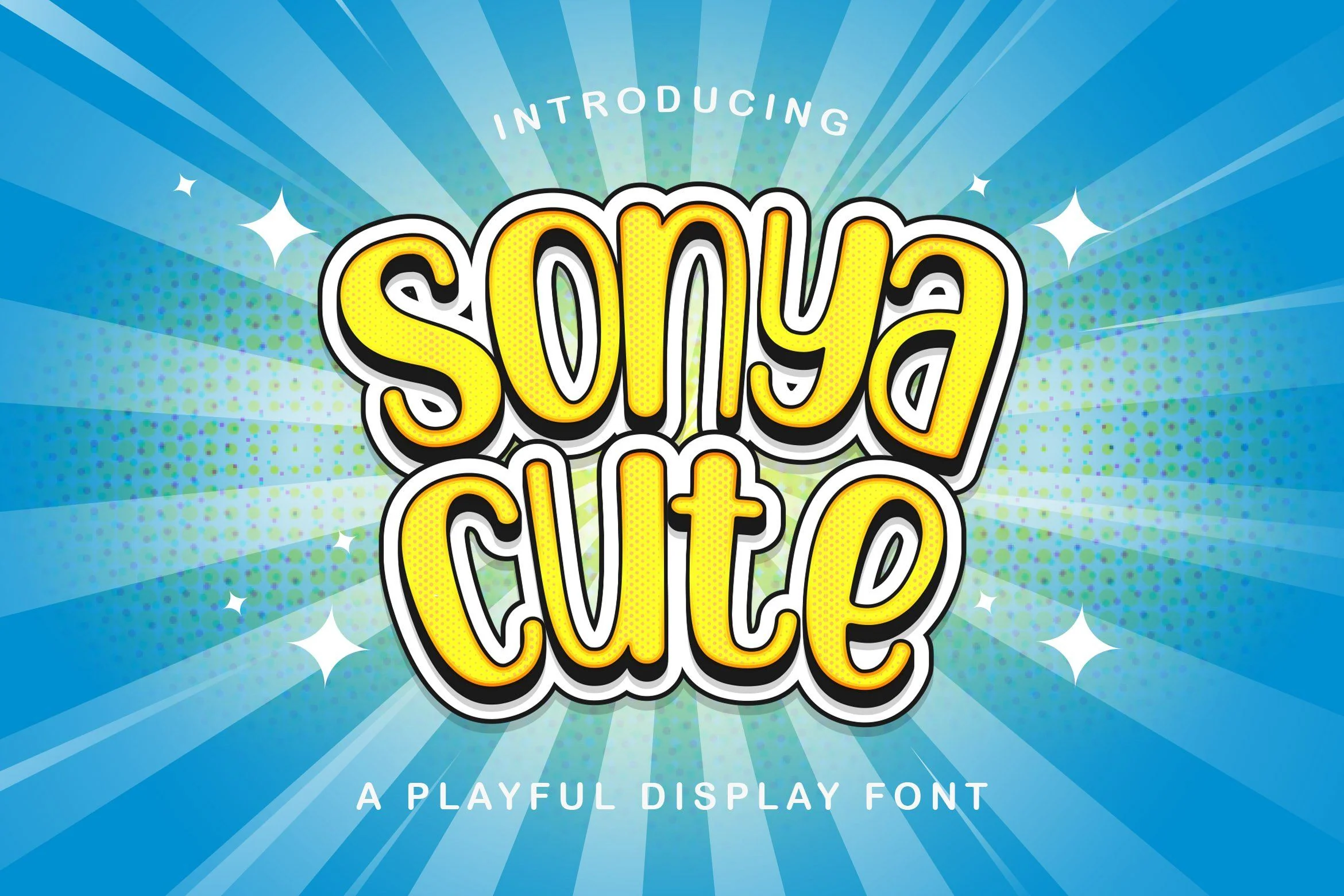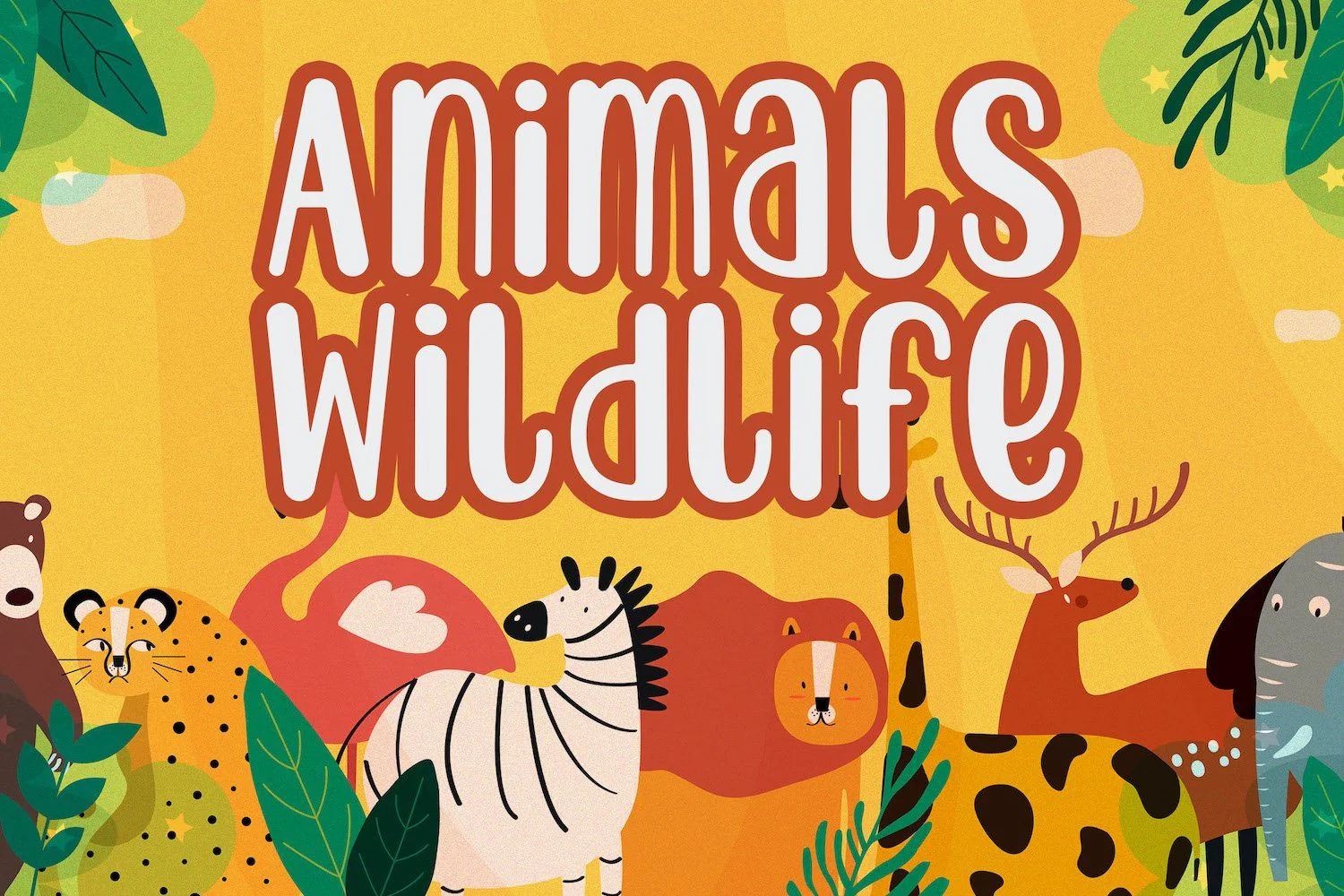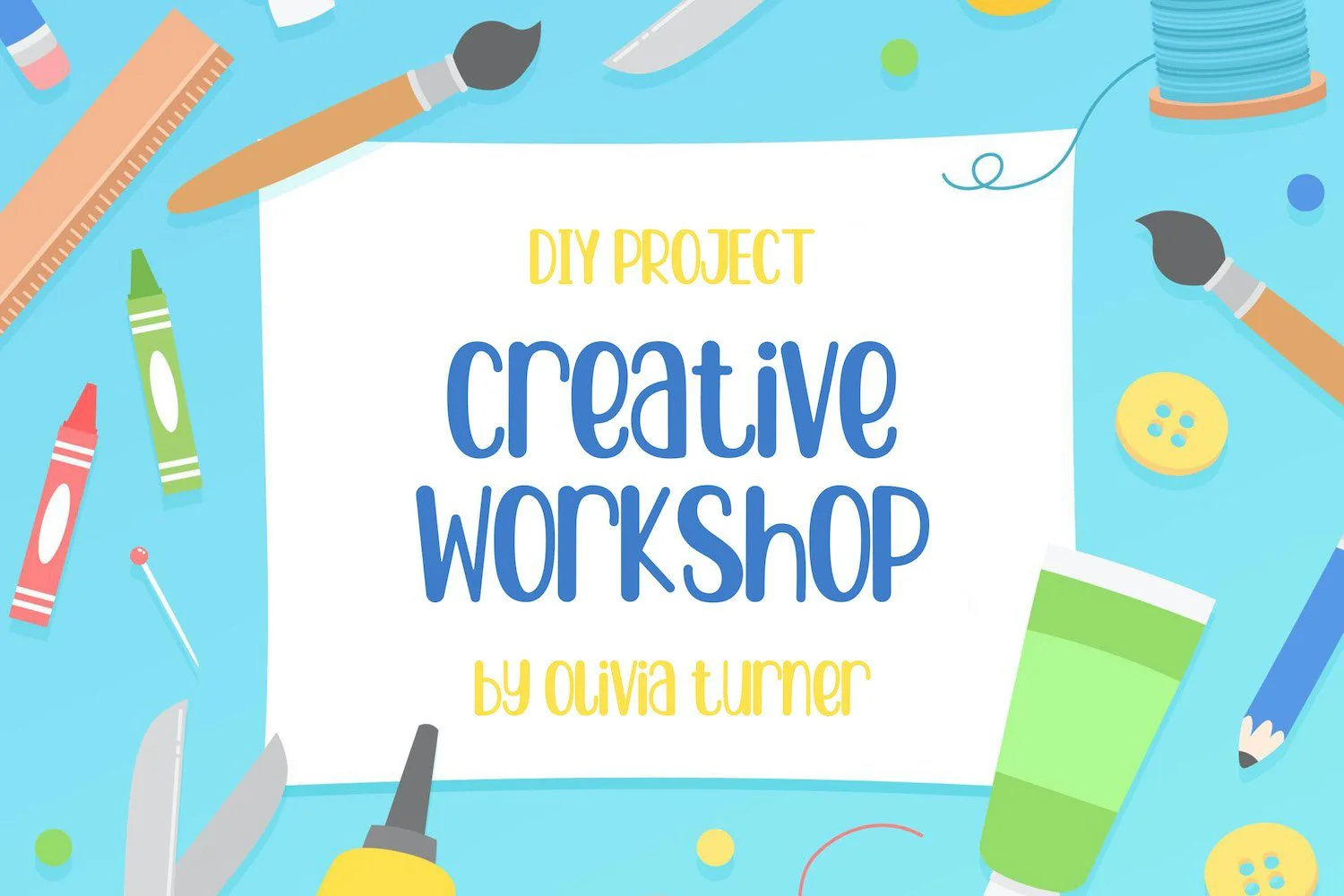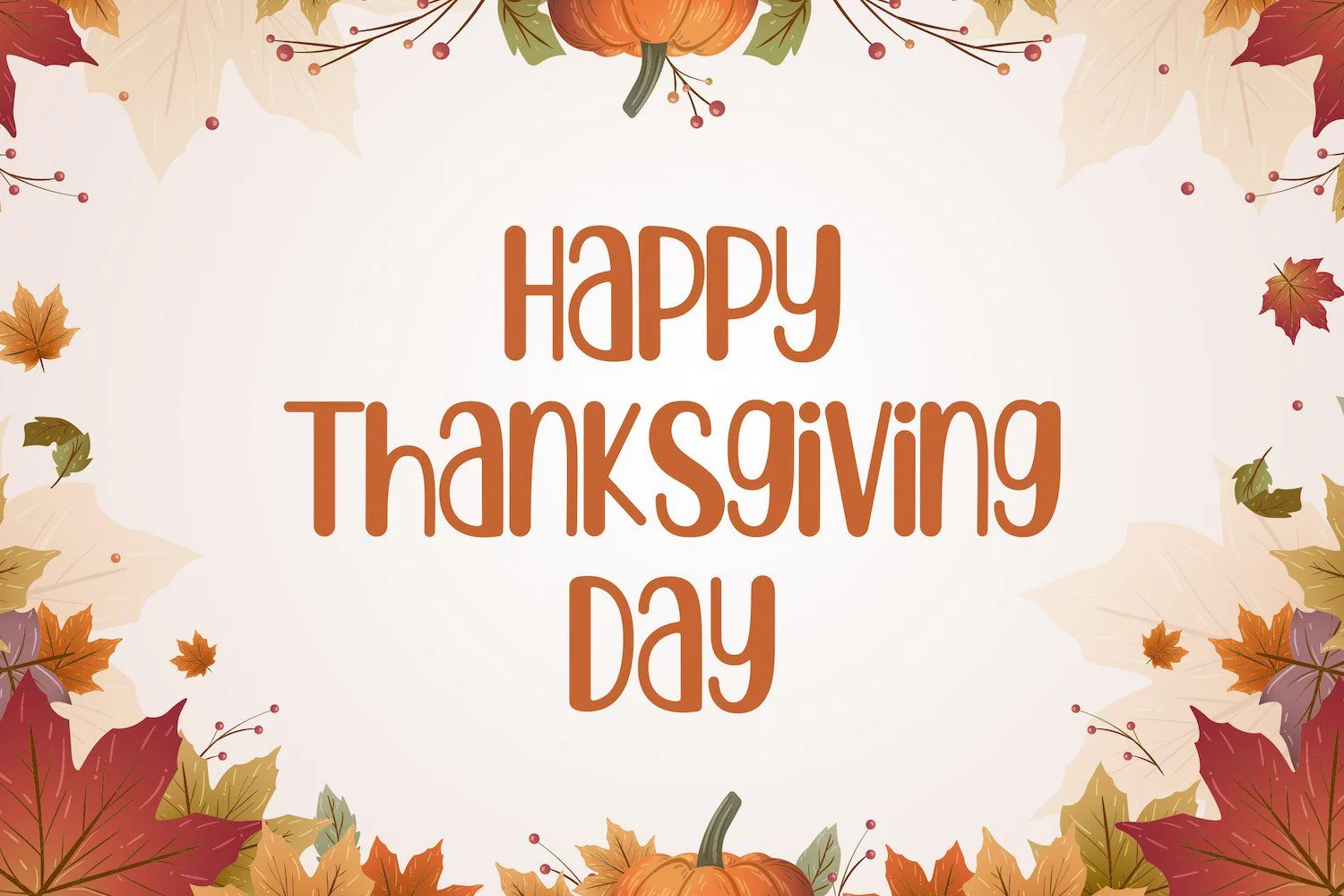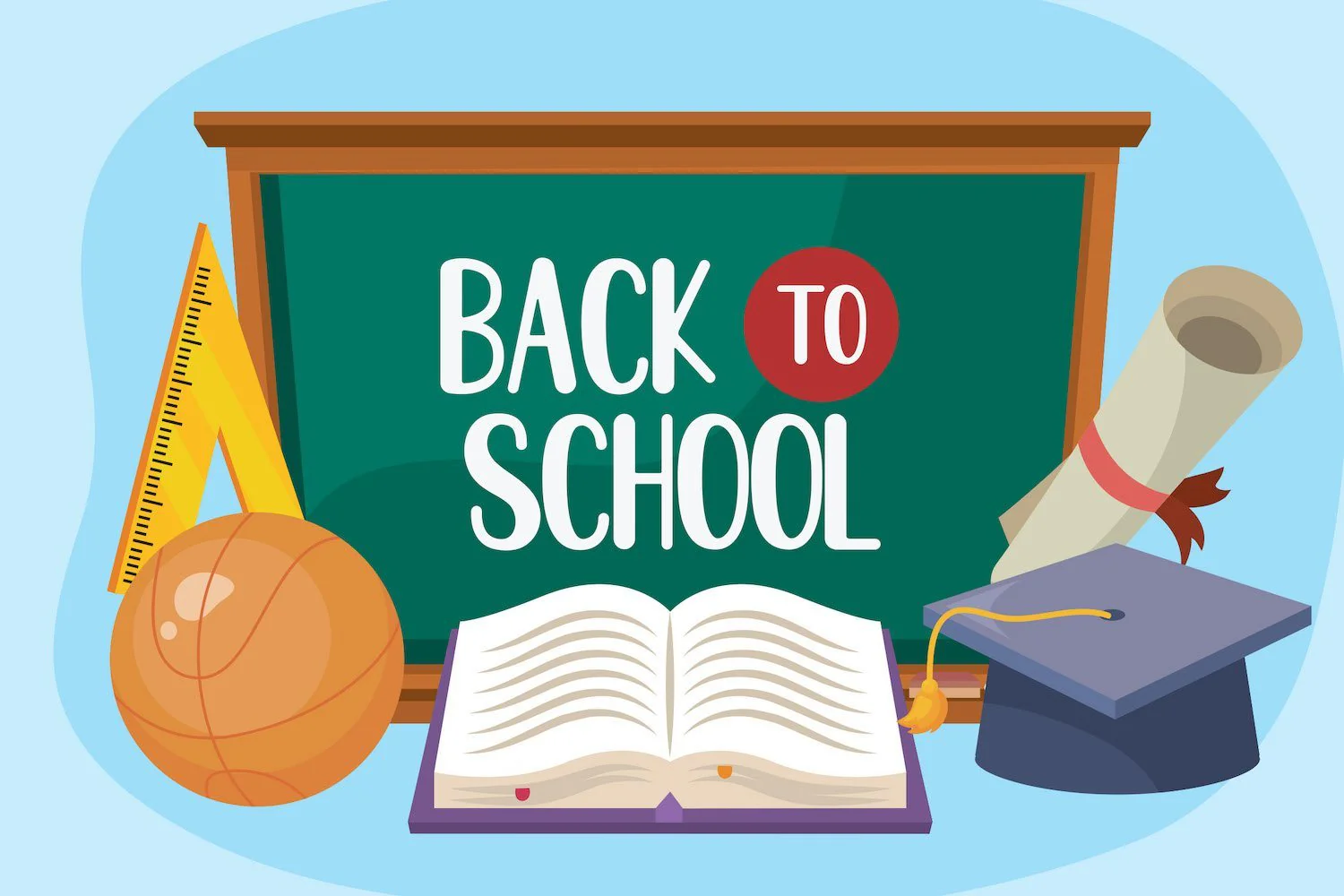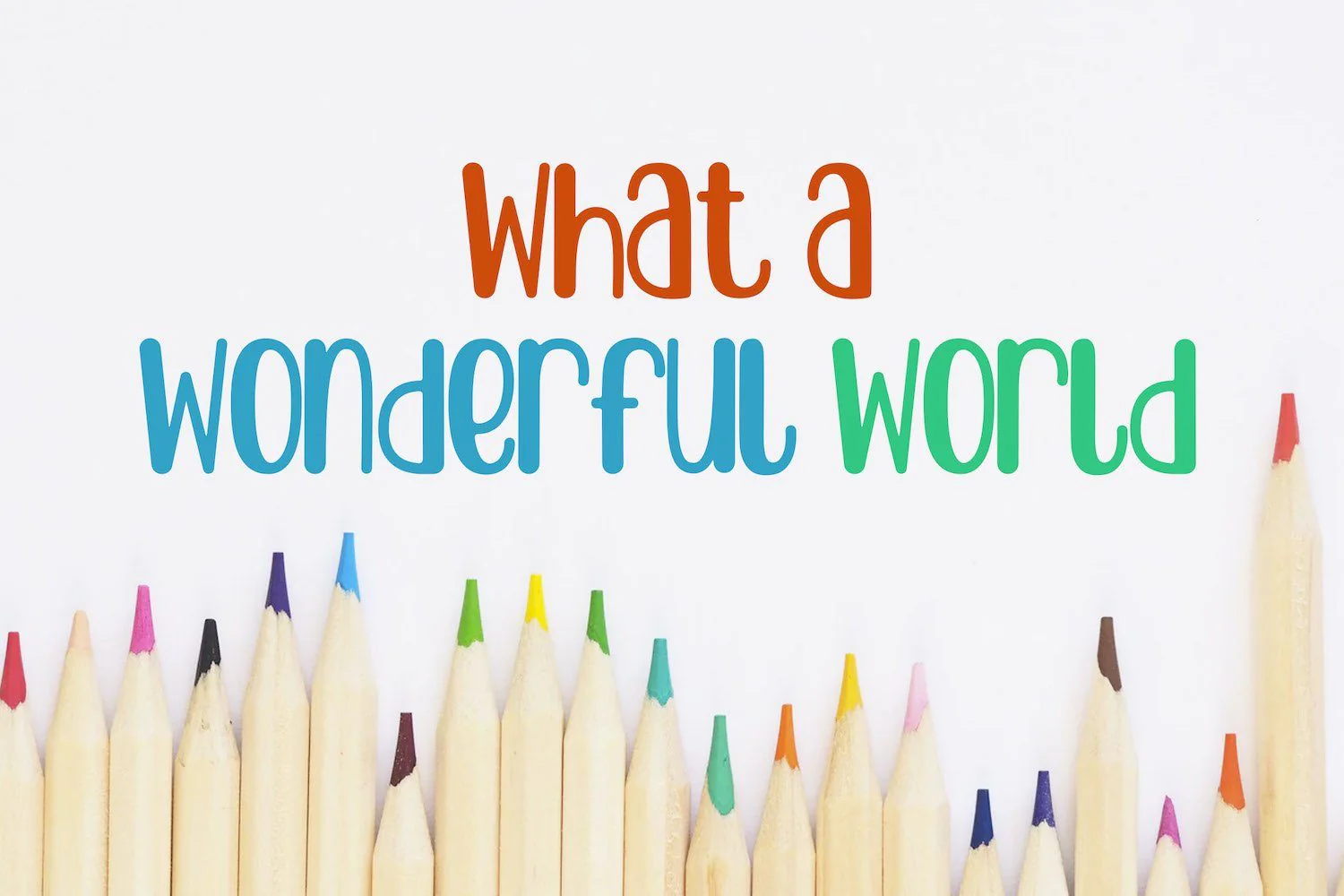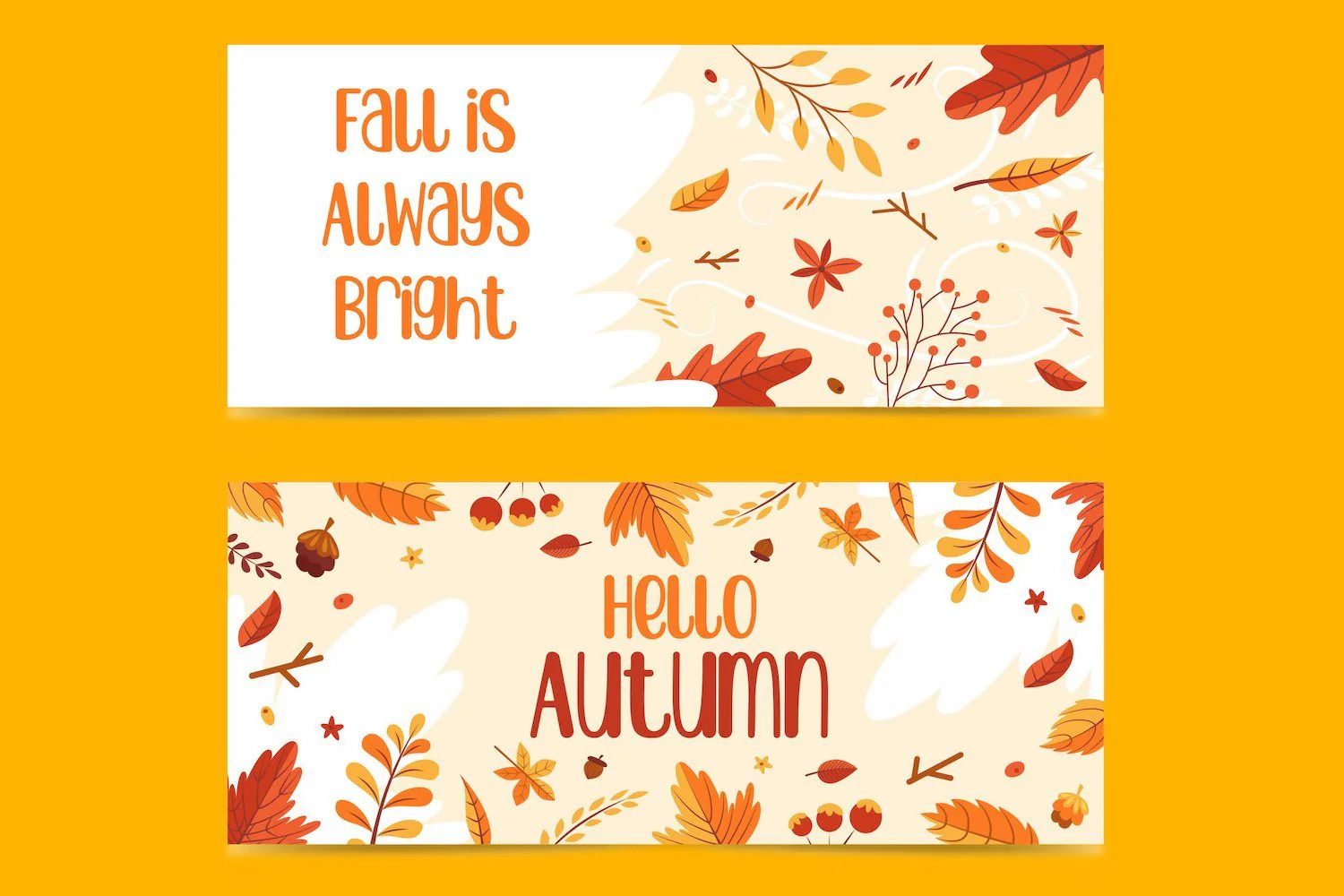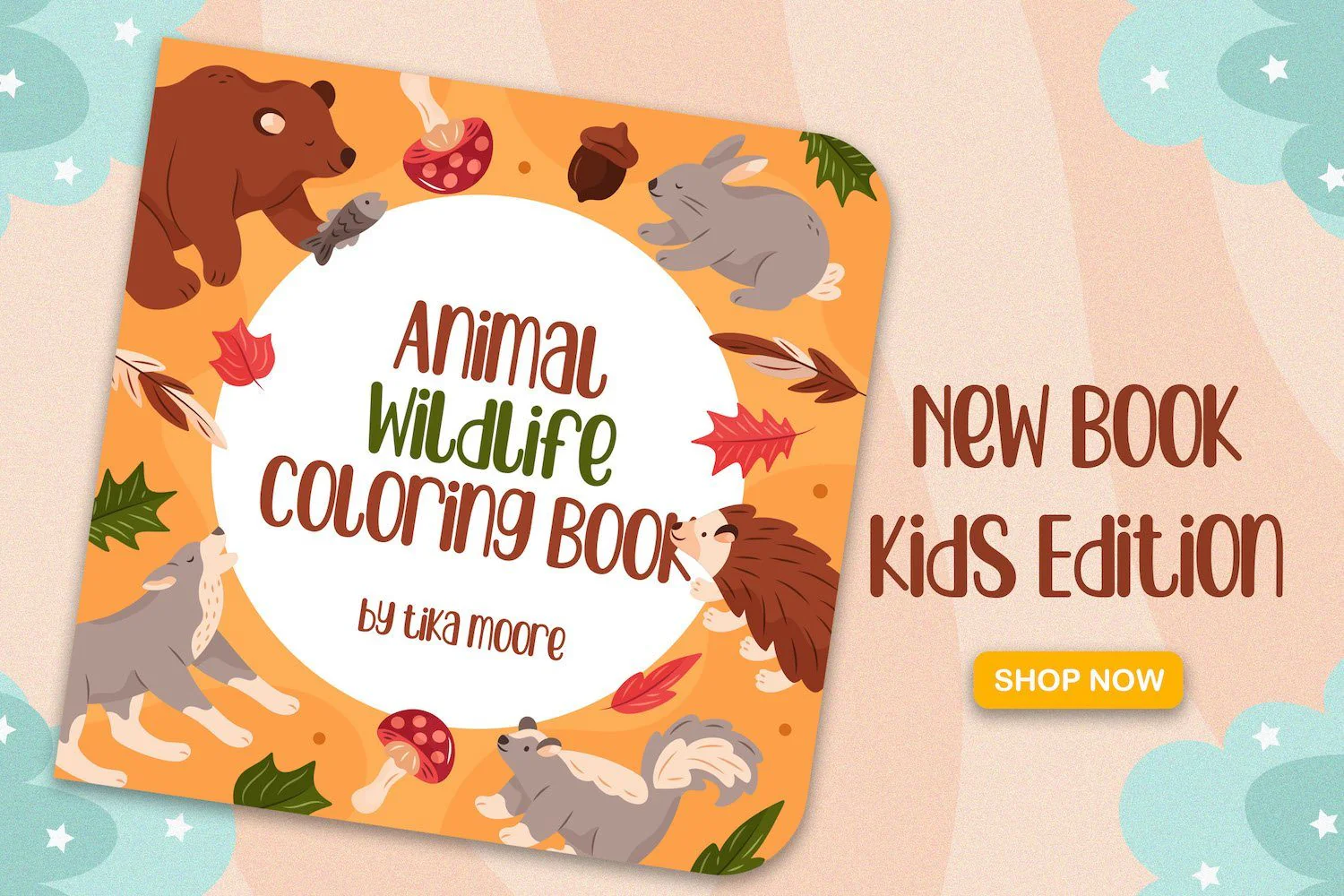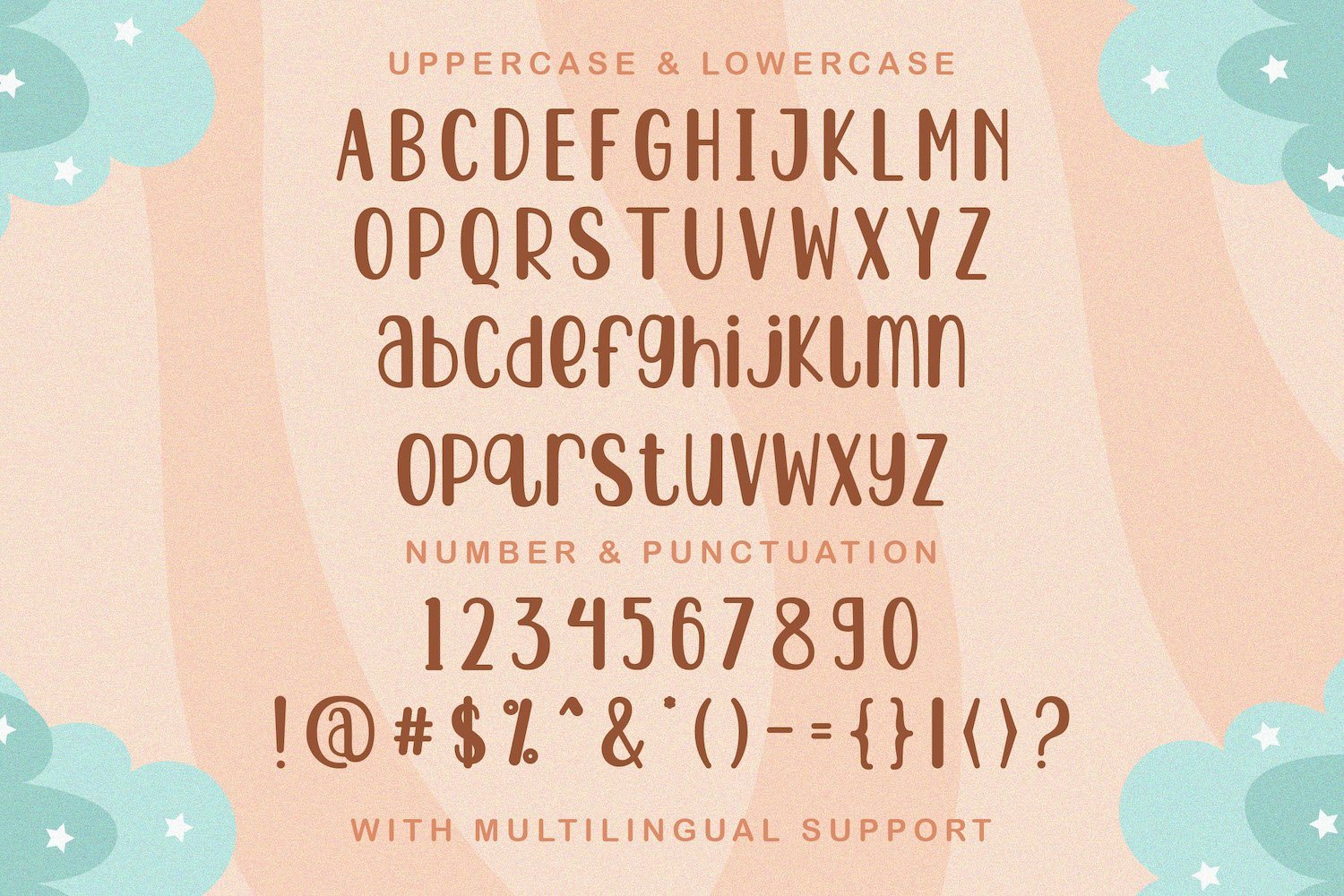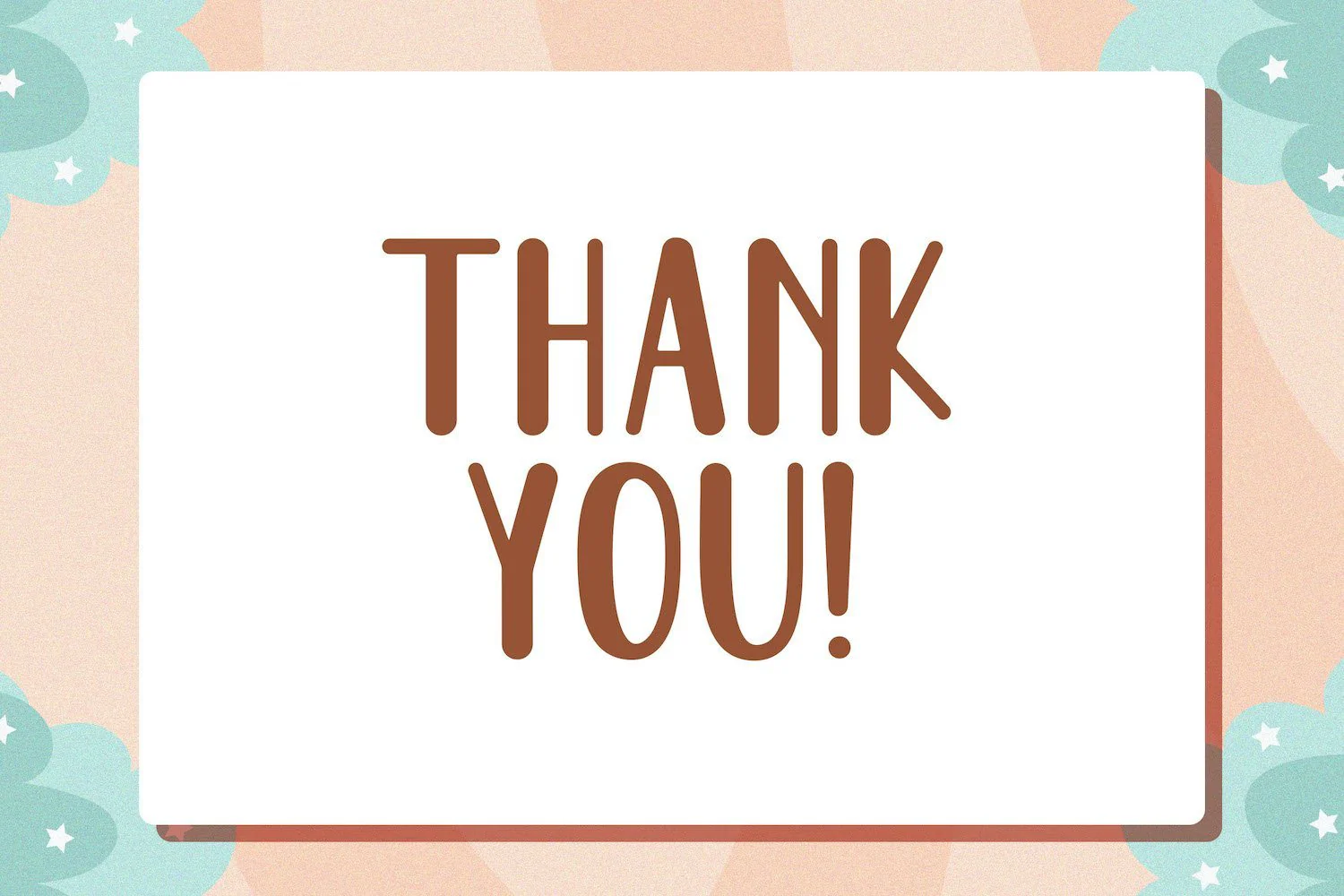
Sonya Cute - Playful Display Font
Introducing Sonya Cute - Playful Display Font
Sonya Cute is a fun display font. Playful and fresh, this font will be a hit for each of your children or school projects!
Introducing Sonya Cute - Playful Display Font
Sonya Cute is a fun display font. Playful and fresh, this font will be a hit for each of your children or school projects!